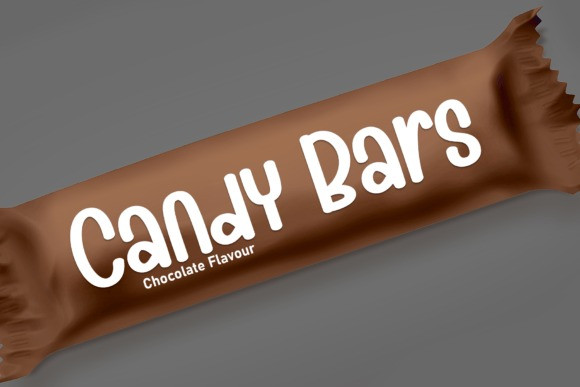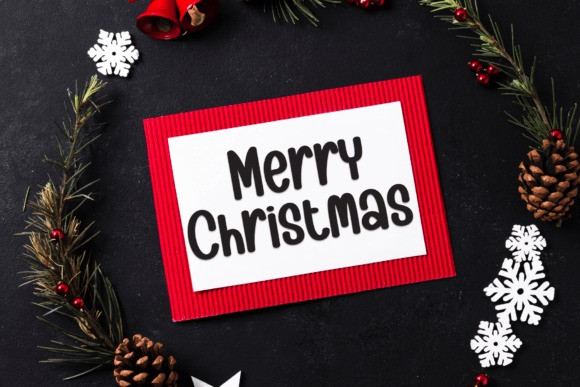
Ghost Office Font
Ghost Office Font is a sweet and friendly handwritten font. Its natural and unique style makes it incredibly fitting to a large pool of designs. The only limit is your imagination!